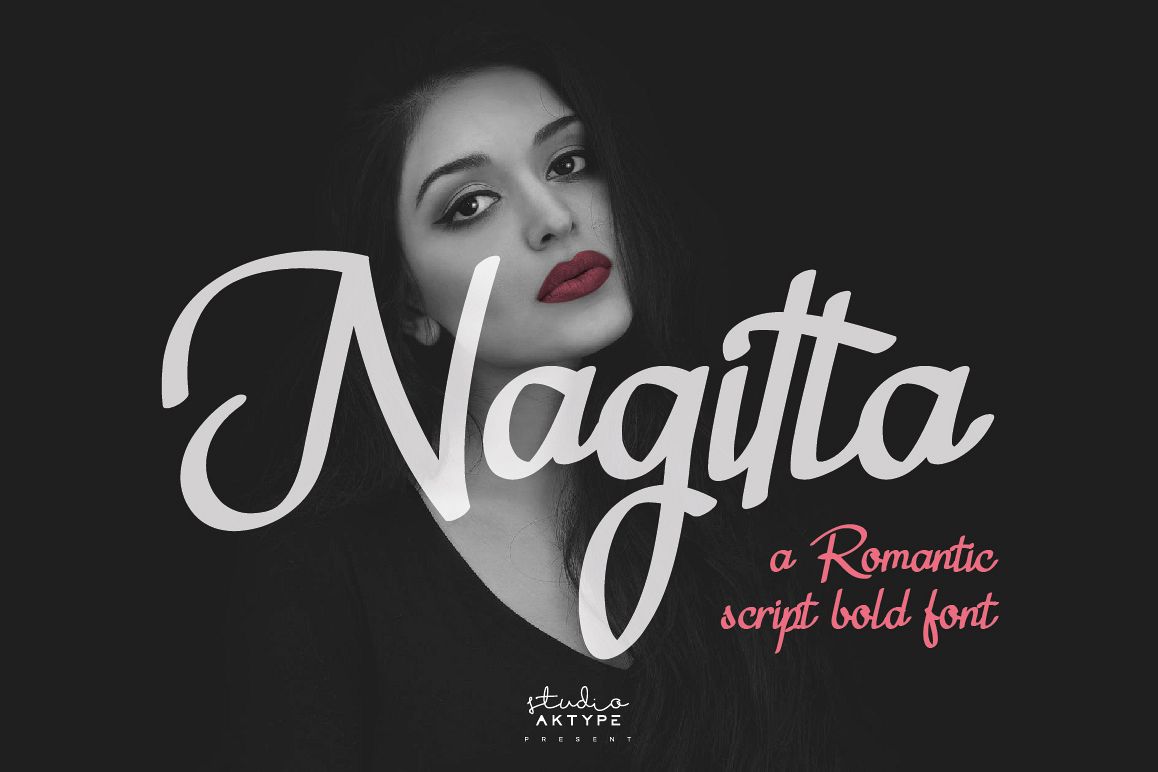
Nagitta Script
Nagitta Script is a work of romantic letters from us that is inspired by a love story, this letter looks beautiful and elegant, very suitable to be applied to your project.
Nagitta Script would perfect for wedding designs, invitation, photography, watermark, social media posts, advertisements, logos & branding, product designs, label, stationery, product packaging, special events or anything that need handwriting taste.